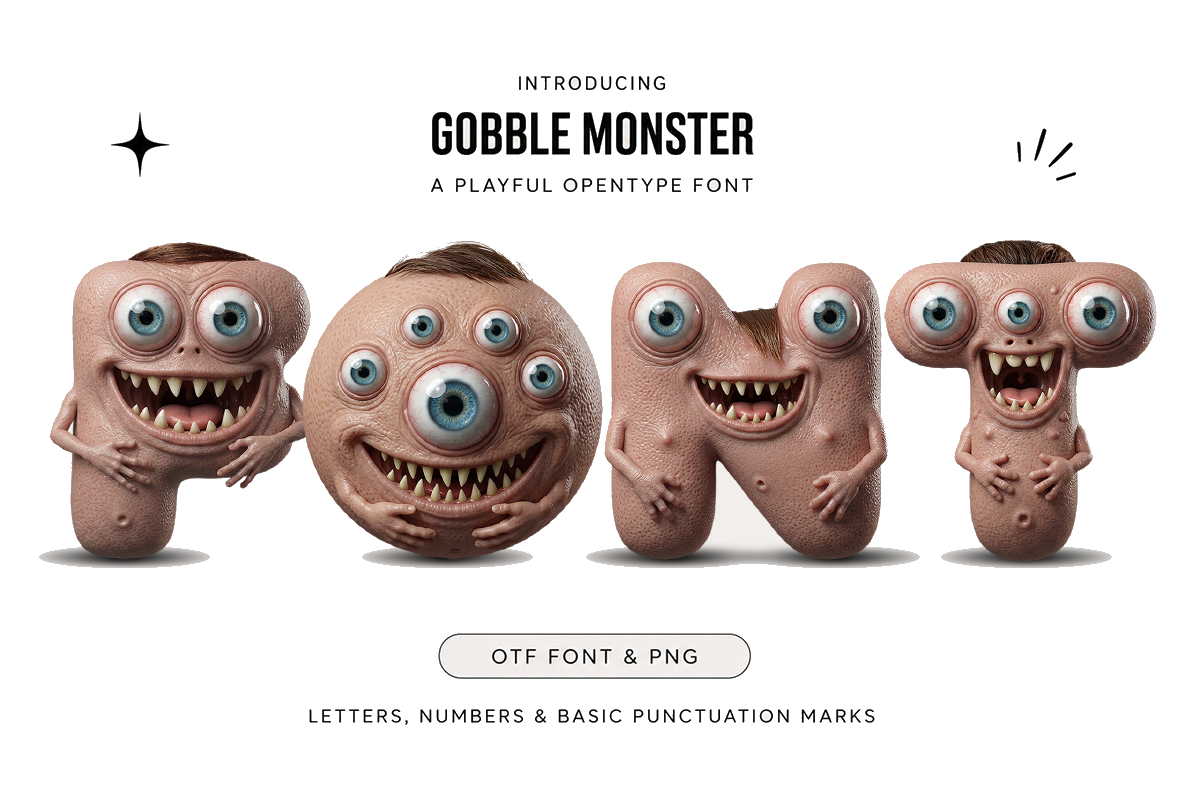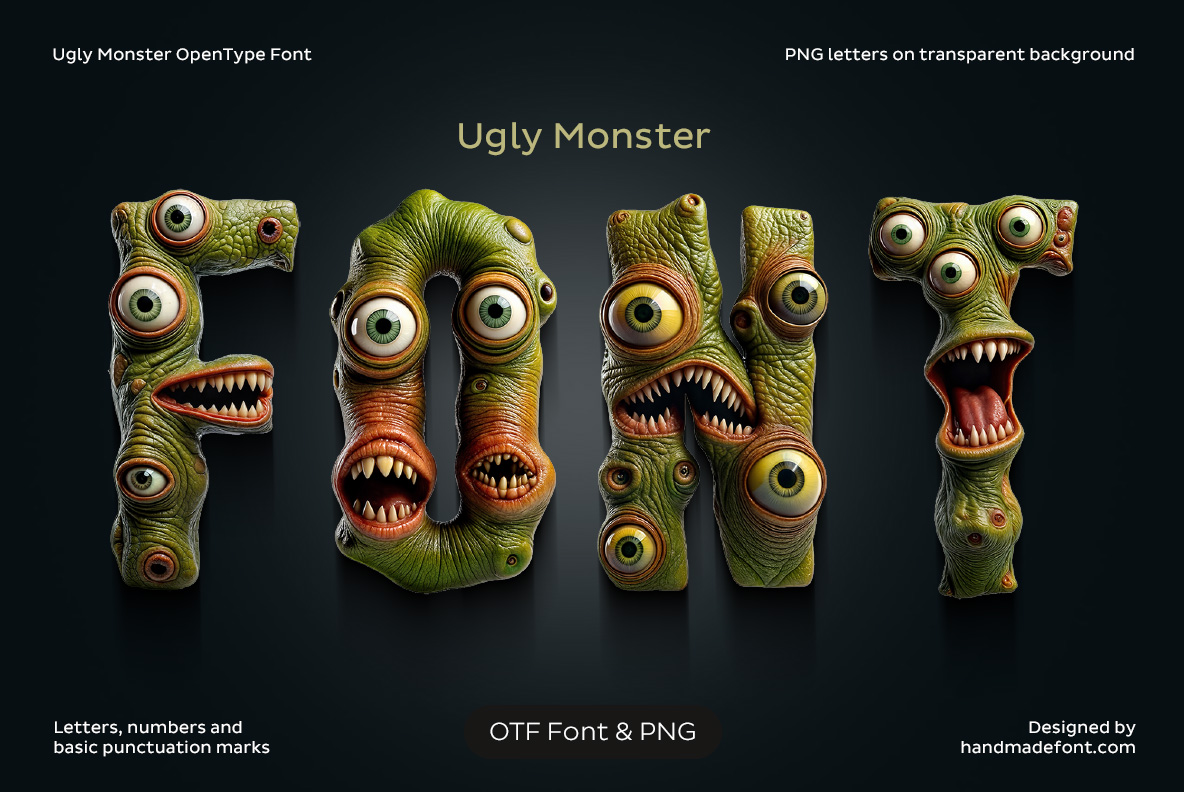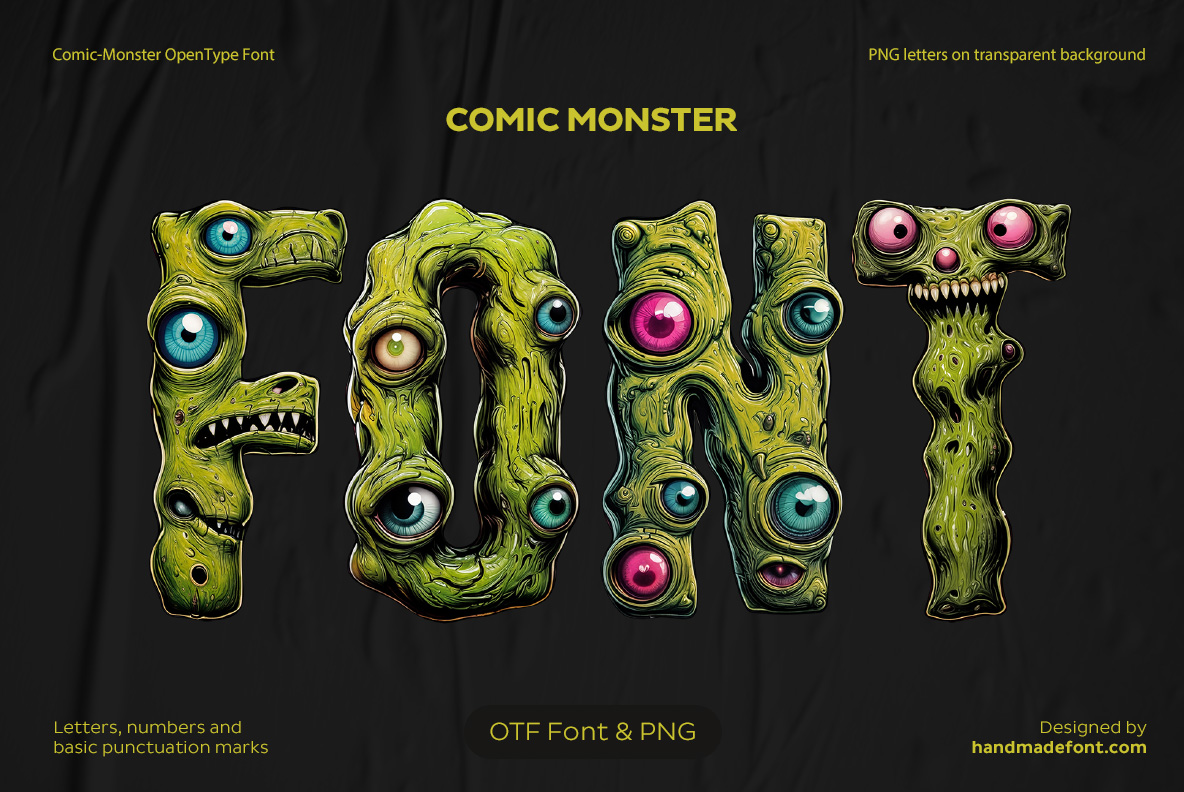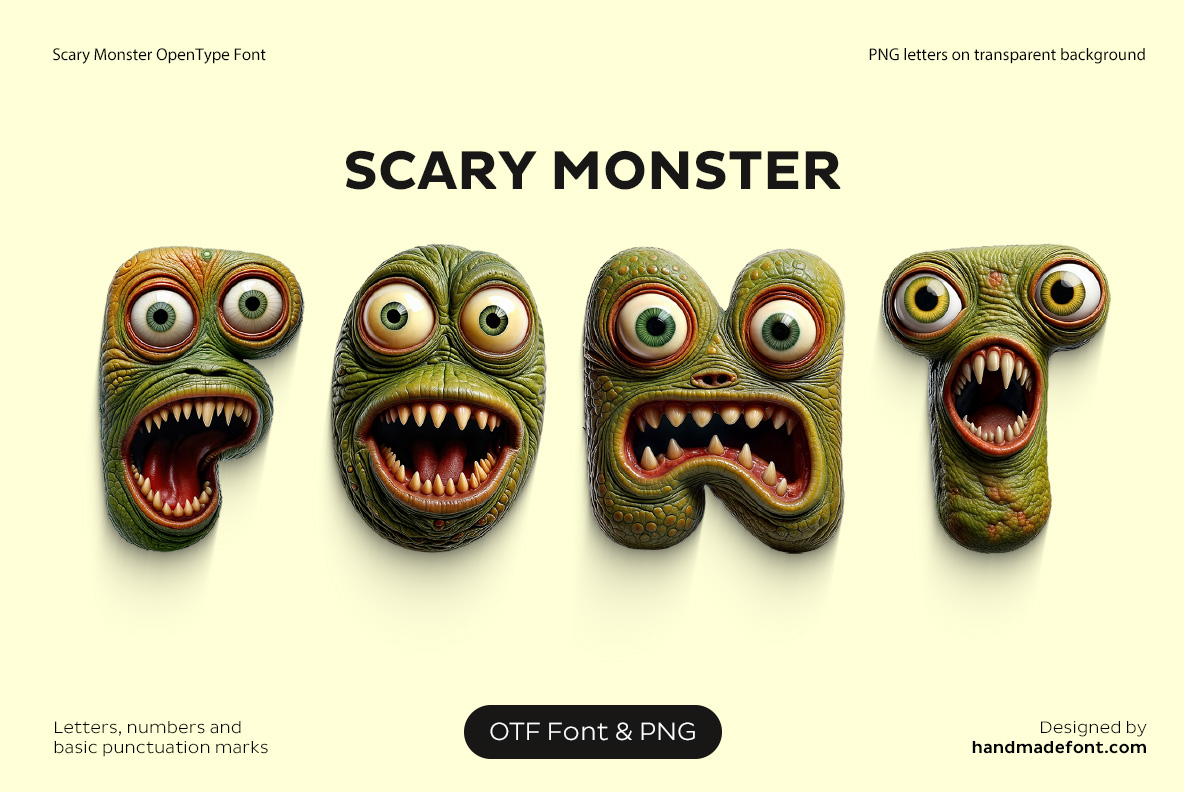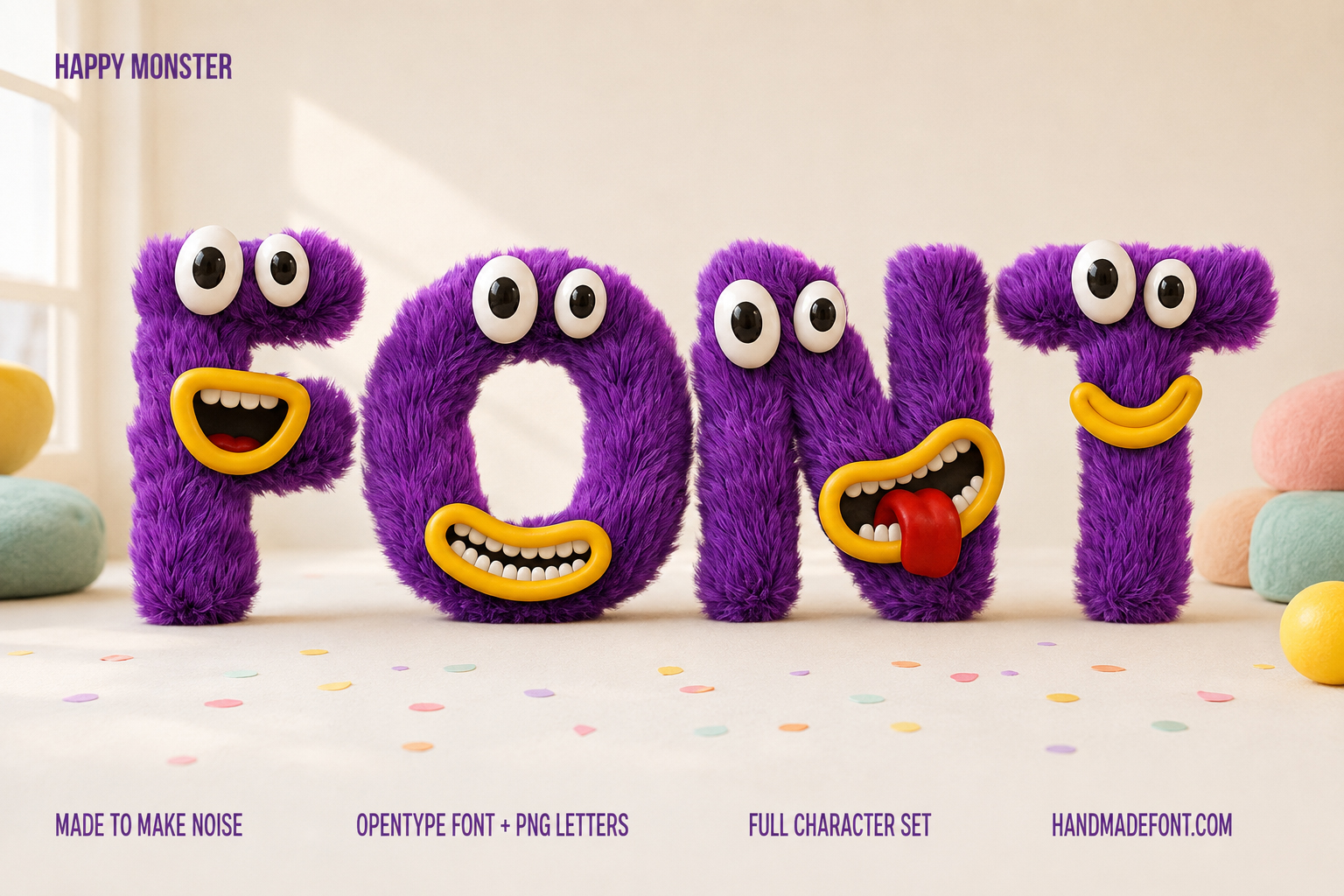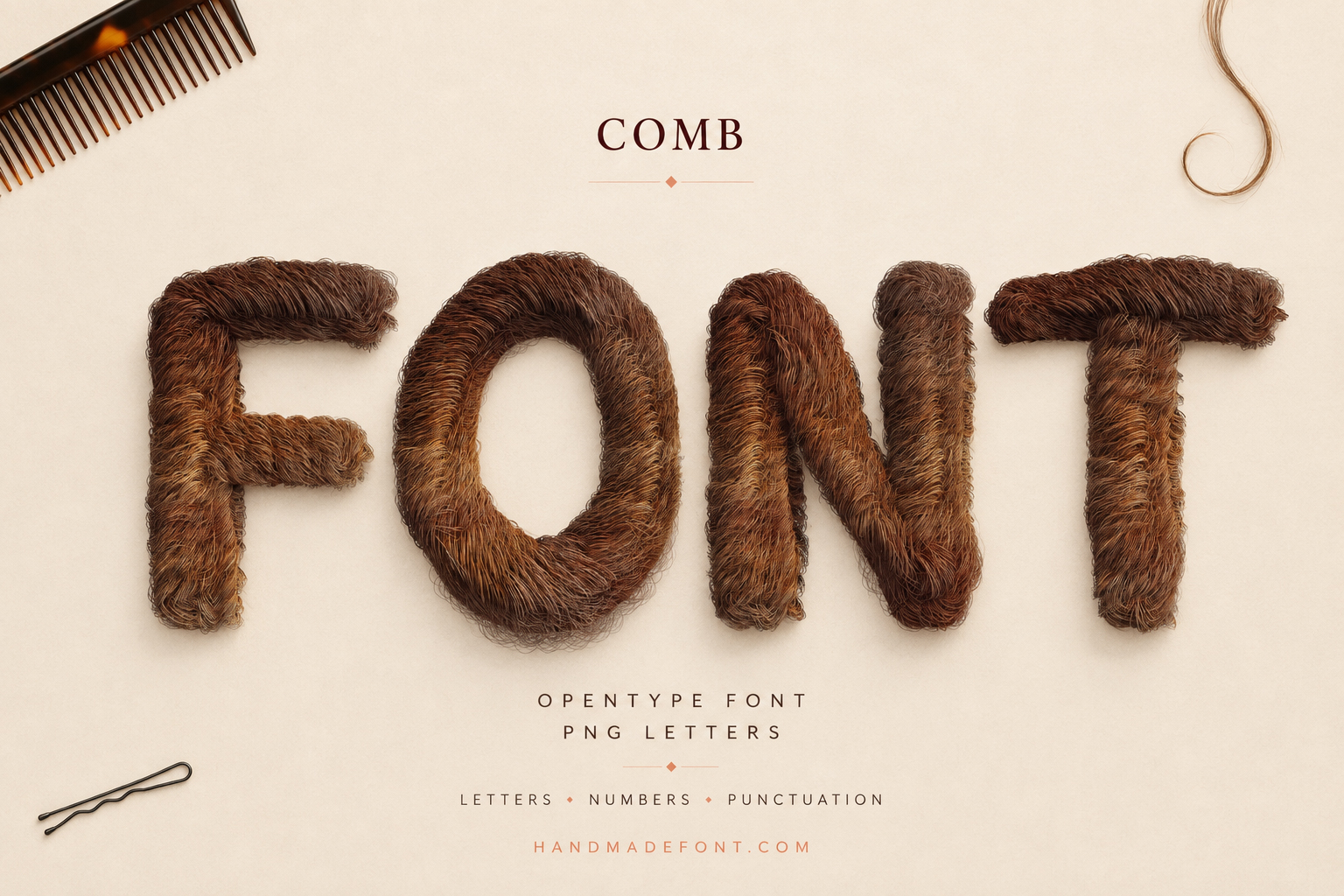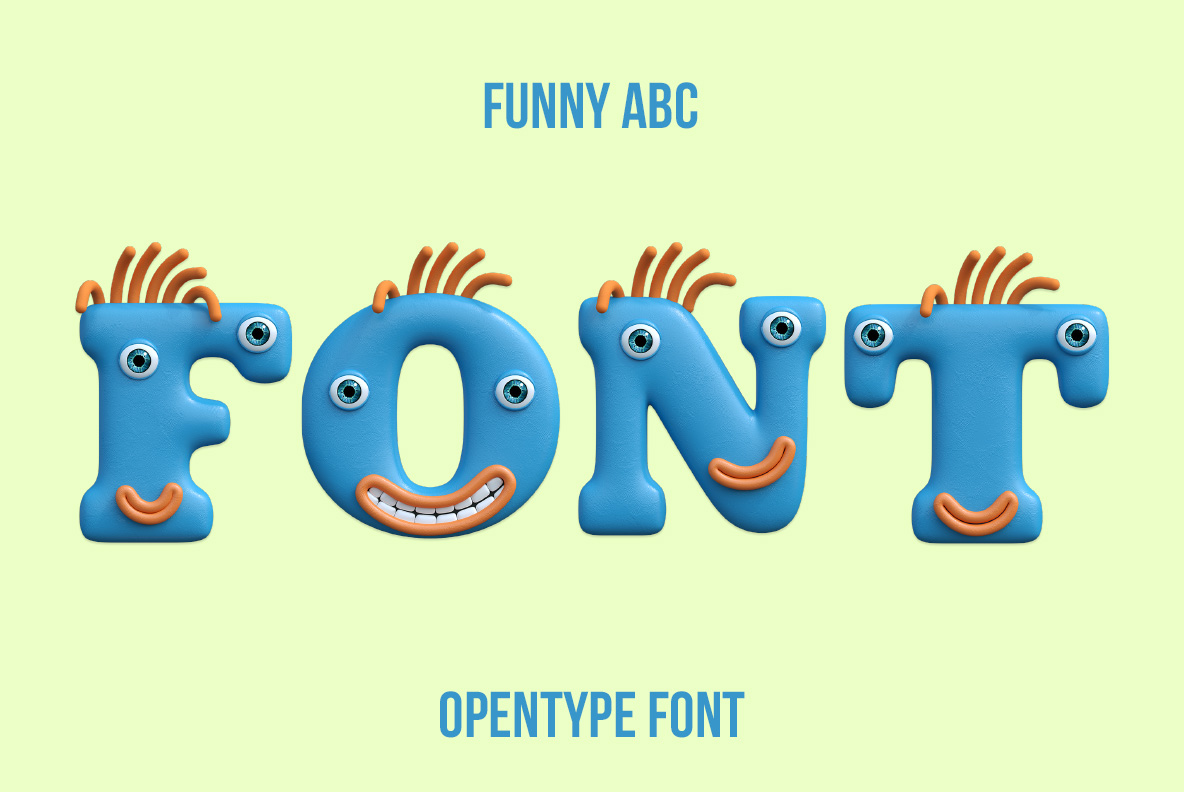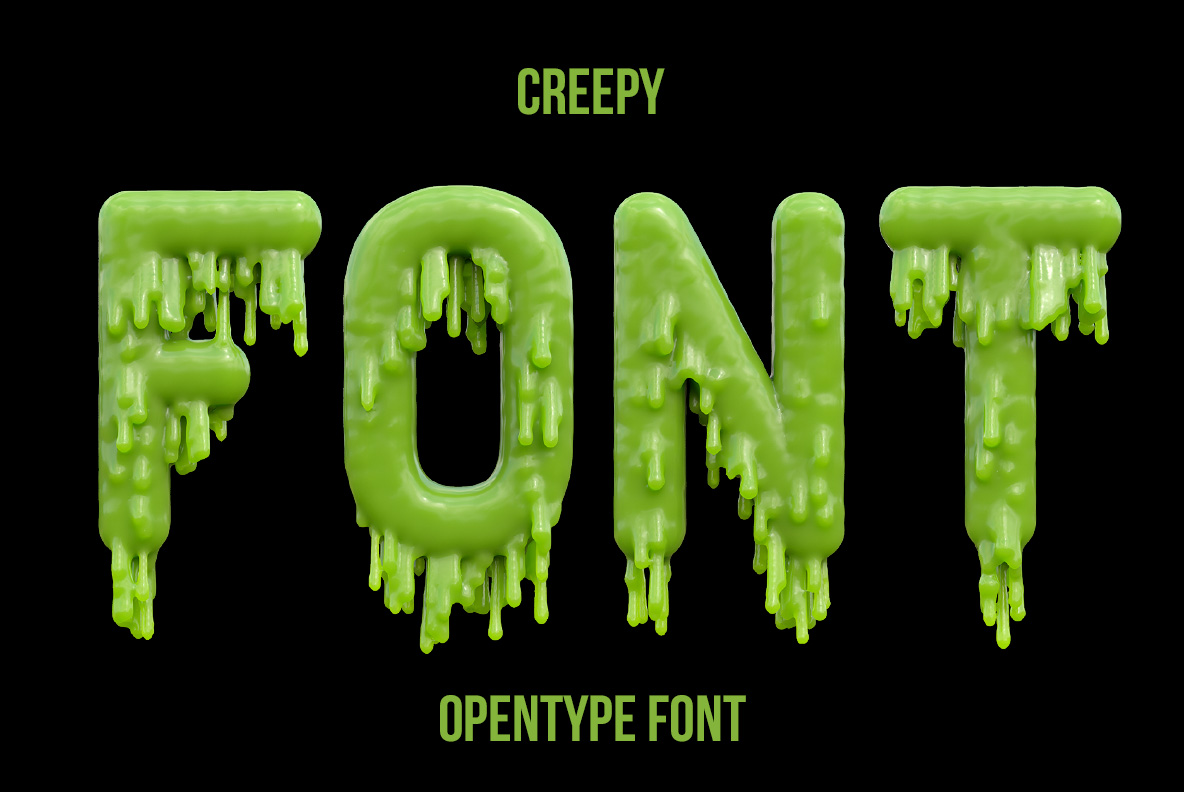
Monster Fonts – Scary, Funny & Creepy Typography
Monster Fonts give the alphabet teeth, eyes, fur and a personality of its own. Meet creepy creatures, funny faces, skulls, hairy letters and wonderfully strange characters ranging from genuinely scary to completely ridiculous. These expressive fonts bring creature-inspired typography to Halloween graphics, posters, games, packaging, entertainment, children’s projects and designs where ordinary letters simply aren’t monstrous enough.
Monster Fonts run the whole range here, from creatures a five-year-old would hug to a row of human skulls. What they share is that somebody actually built the things: eyes are set into the letterform instead of pasted on top, fur lies in a direction, slime pools where slime would pool. Pick by how much you intend to frighten the reader, not by which one looks most like a monster.
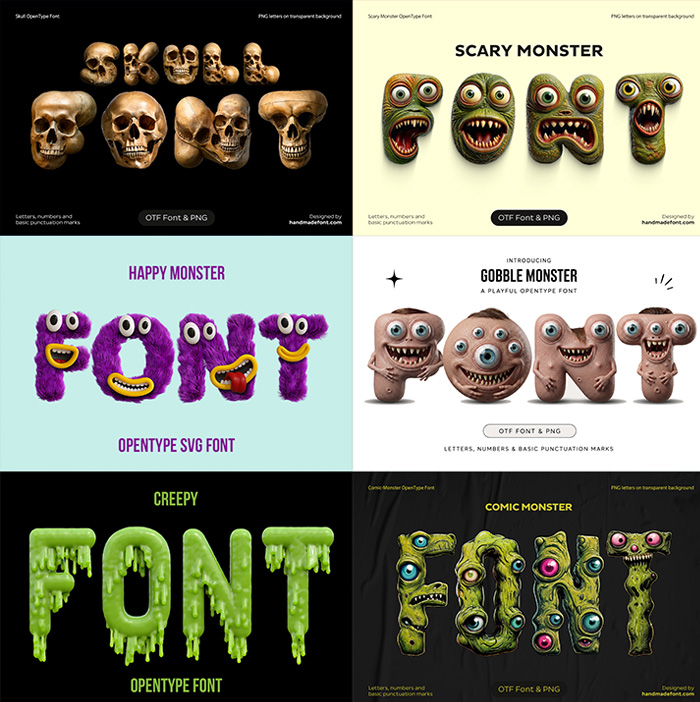
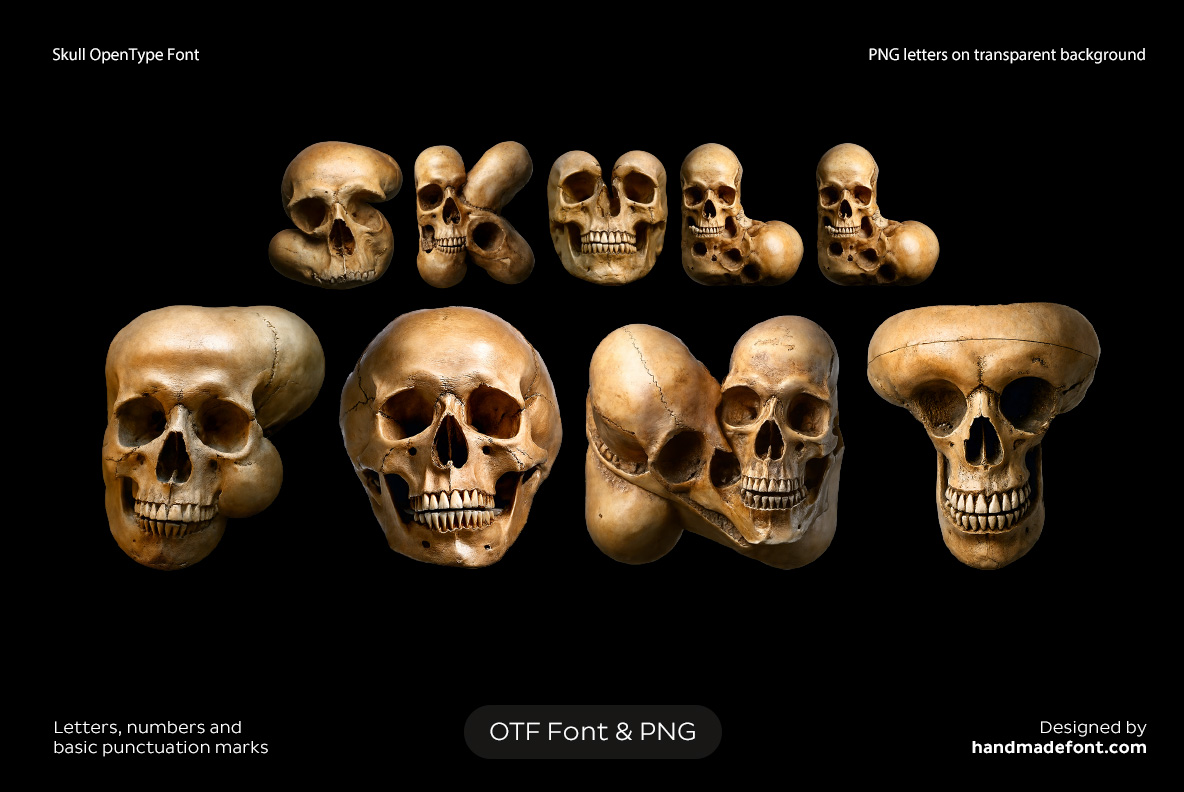From Cuddly to Do Not Show the Children
Skull Font with macabre letterforms built from skulls and skeletal details
Skull Font
Real human skulls, teeth and all, stacked into letters on black.
Gobble Monster Font with playful creature-inspired letters, mouths and teeth
Gobble Monster Font
Small clay creatures with mismatched googly eyes and far too many teeth.
Ugly Monster Font with strange eyes, teeth and grotesque organic textures
Ugly Monster Font
Warty green hide, sunken eyes, mouths that open wider than the letter does.
Comic Monster Font featuring funny monster letters with eyes and toothy expressions
Comic Monster Font
Glossy lime bodies studded with bright cartoon eyeballs.
Scary Monster Font with sinister letterforms, sharp teeth and creepy details
Scary Monster Font
Green faces caught mid-scream, jaws hinged open on every capital.
Happy Monster Font with colorful furry letters and playful monster faces
Happy Monster Font
Purple fur, lolling tongues, eyes pointing in different directions. Aimed squarely at children.
Comb Font with unusual letters formed from dense hair-like textures
Comb Font
Brushed brown hair combed into letterforms, with the comb and hairpin left in shot.
Funny ABC Font with colorful letters designed as expressive creature characters
Funny ABC Font
Smooth blue heads with orange tufts and a grin. The friendliest thing here.
Creepy Font with unsettling green letterforms and strange organic textures
Creepy Font
Lime slime running off the bottom of every stroke and pooling underneath.
Hulk Icecrack Font with massive fractured letterforms and aggressive cracked textures
Hulk Icecrack Font
Blue ice shattered right through, apparently held together by nothing.
Monster Fonts Are Not Only for October
Halloween is the obvious season, and these cover the whole run of it — party invitations, pub posters, costume-shop windows, the supermarket end-cap. The cute half earns its keep all year round, though: childrens books, cereal packaging, kids TV titles, birthday parties, classroom material. The nasty half goes to horror posters, metal and punk sleeves, escape rooms, haunted attractions and game interfaces. Choose by audience rather than by season.
More Monster Fonts, Bones Included
The grid above is the illustrated core, but the shop keeps a deeper cellar. Creatures first: Ink Critters Font, Monster Hair Font, Monster Eyes Font, Alien Font and Toxic Font. Then the messier end — Blood Font, Bloody Vampire Font and Maniac Font.
Bones and skulls make up the biggest group by some way: Skeleton Font, Bone Font, Bones v1 Font, Lovely Bones Font, Chicken Bones Font, Golden Skull Font, Bone Pile Font and Archaeology Font. And for the last week of October there are Jack-o’-lantern Font, Pumpkin Font and Invisible Horror Font.
If the Brief Is Odd Rather Than Frightening
Fur, pile and pelt without any teeth are gathered in Fur Fonts. Anything cracked, frozen or blue belongs with Ice Fonts, while the genuinely strange rather than the scary sits in Experimental Fonts.